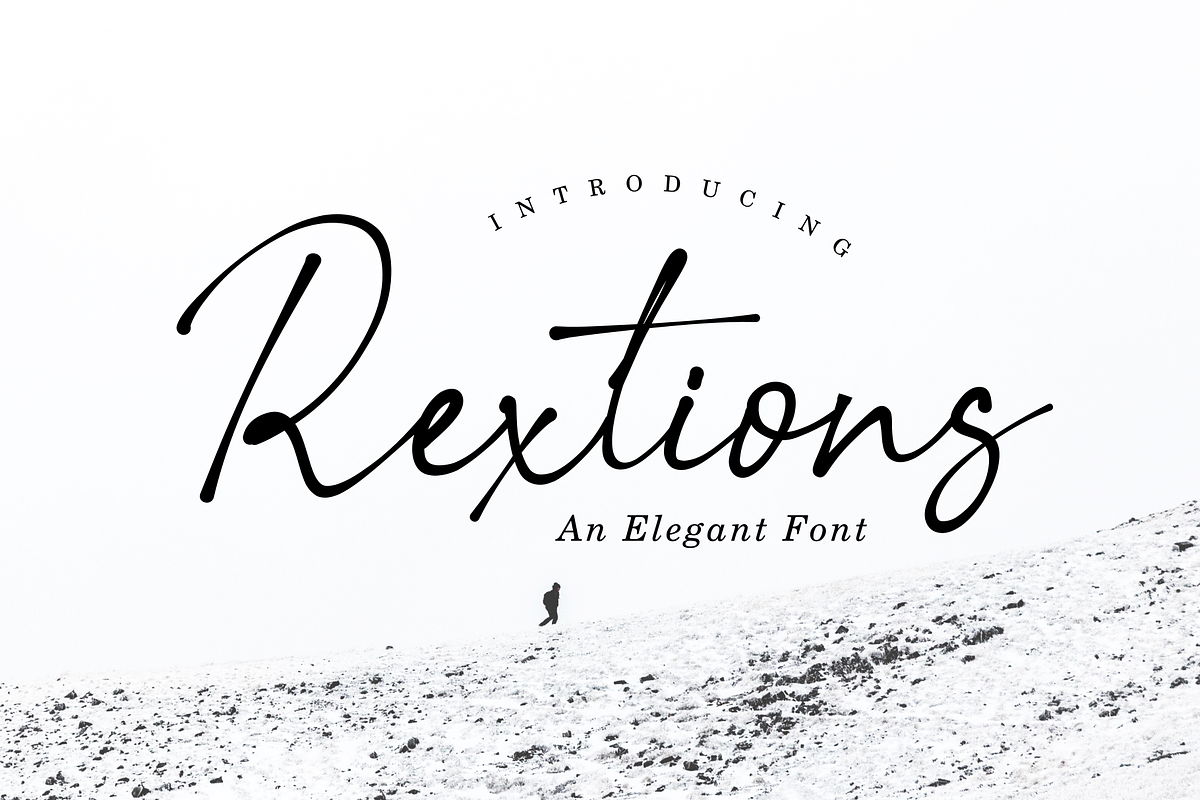
Rextions / an elegant font Free Download
Rextions – An Elegant Font Free Download is a refined and graceful typeface crafted to elevate your designs with timeless sophistication and modern flair. Please note, you are required to purchase this font for commercial use. It is available for free download for testing and personal projects only.
With its high-contrast strokes, stylish curves, and clean letterforms, Rextions is perfect for luxury branding, fashion editorials, wedding invitations, product packaging, and elegant logo design. It brings a touch of class and professionalism to any visual layout while maintaining exceptional readability.